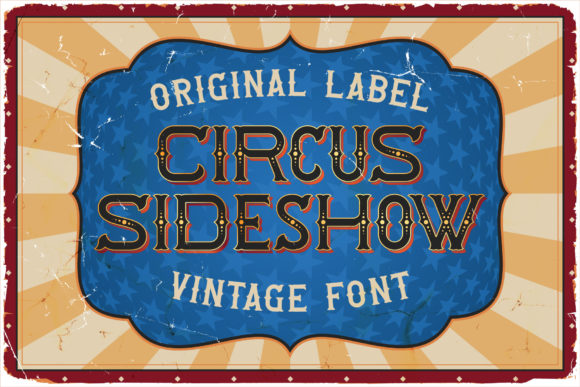
Venture into the captivating world of Circus Sideshow, a display font that exudes charm and nostalgia, evoking the magic of vintage carnivals and the allure of bygone eras. This exquisite typeface, crafted by the talented Vozzy Vintage Fonts and Graphics, transcends time, bringing a touch of whimsy and elegance to your creative endeavors.
Unleash your imagination and embark on a typographic journey with Circus Sideshow. Let its unique characters dance across your designs, whether in digital creations, presentations, or heartfelt greeting cards. Experience the joy of crafting logos that emanate a timeless allure, posters that transport you to a world of wonders, and social media graphics that spark conversations. With Circus Sideshow, your words will resonate with a captivating charm that leaves a lasting impression.
This versatile font is your gateway to a world of creative possibilities. Its playful nature lends itself effortlessly to quirky illustrations, vintage-inspired branding, and eye-catching T-shirt designs. Imagine your designs adorned with Circus Sideshow's intricate details, enchanting your audience with a sense of wonder and nostalgia.
Step into the spotlight with Circus Sideshow, a display font that commands attention and transforms the ordinary into the extraordinary. Its meticulously crafted characters embody the spirit of adventure and ignite a spark of inspiration. Embrace the essence of vintage charm and let Circus Sideshow elevate your designs to new heights of sophistication.
With its playful curves and elegant flourishes, Circus Sideshow is the perfect choice for those seeking a font that captivates and enchants. Download Circus Sideshow today and embark on a creative journey like no other.